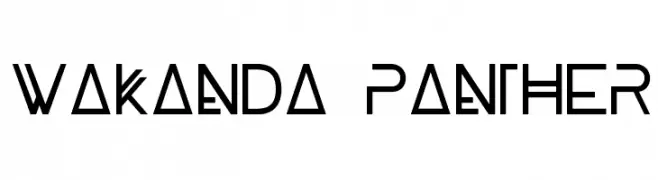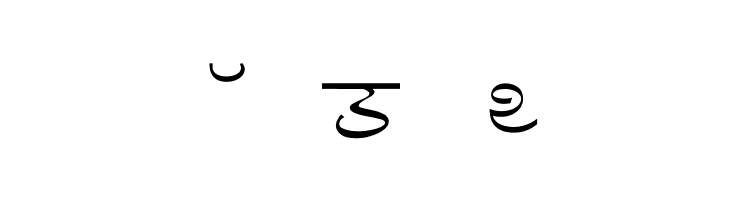
A bold, geometric font with strong, angular lines and a modern architectural feel.
A fluid, cursive script font with a natural handwriting style.
A playful, casual handwritten font with a natural, organic flow.
A decorative font with characters enclosed in Celtic crosses, blending tradition with modern style.
A wireframe-style font with a three-dimensional, technical look.
A graceful script font with fluid, connected strokes and a natural handwriting style.
A clear and balanced Gurmukhi script font with consistent stroke width.
A bold, expressive handwritten font with dynamic strokes and a playful style.
A decorative insect-themed dingbat font with detailed illustrations.
A decorative font with characters inside turtle silhouettes, offering a playful and thematic design.
A bold, brush-style font with a dynamic, handcrafted appearance.